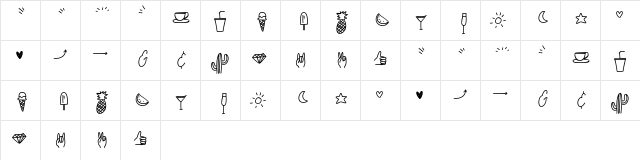
Refresh bonus Regular
| Foundry | studioandstory |
| Designer | michael mervinetsky |
Design Context for Refresh bonus Typeface
Refresh bonus is a composed and adaptable typeface that performs quietly and consistently across a wide range of design contexts.